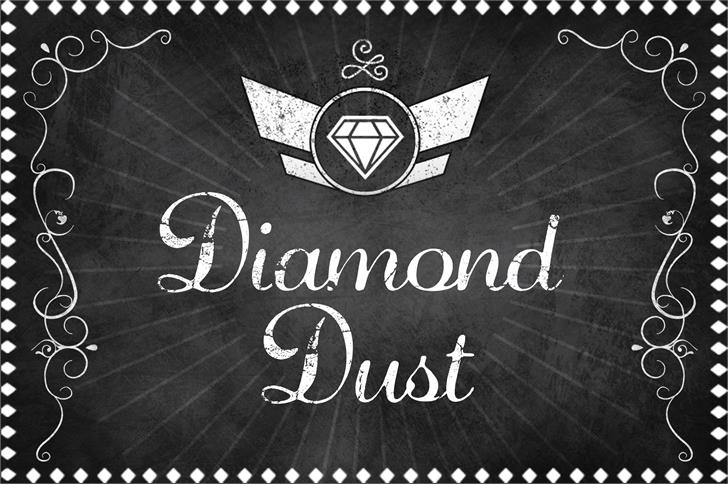
Free Diamond Dust Font
Download and enjoy this free diamond dust font. Cool typeface to showcase your designs in a modern way. Download this free font from the original source of Font Space. Showcase your designs like a graphic design pro by adding a new touch with this fancy font.